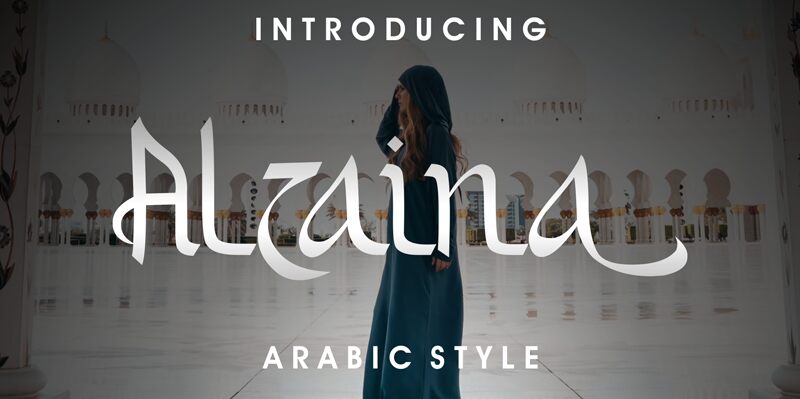
Alzaina is an extraordinary Arabic font that captivates with its striking, bold strokes and intricately crafted letterforms. Designed by zamjump, this foreign-style typeface exudes a distinct sense of elegance and sophistication, drawing inspiration from the rich calligraphic traditions of the Middle East.
The dramatic, sweeping curves and angular terminals lend a captivating visual rhythm to the script, making Alzaina an exceptional choice for a wide range of design applications. From high-end branding and editorial layouts to signage, packaging, and beyond, this versatile font commands attention and adds a touch of refined, cultural flair to any project.